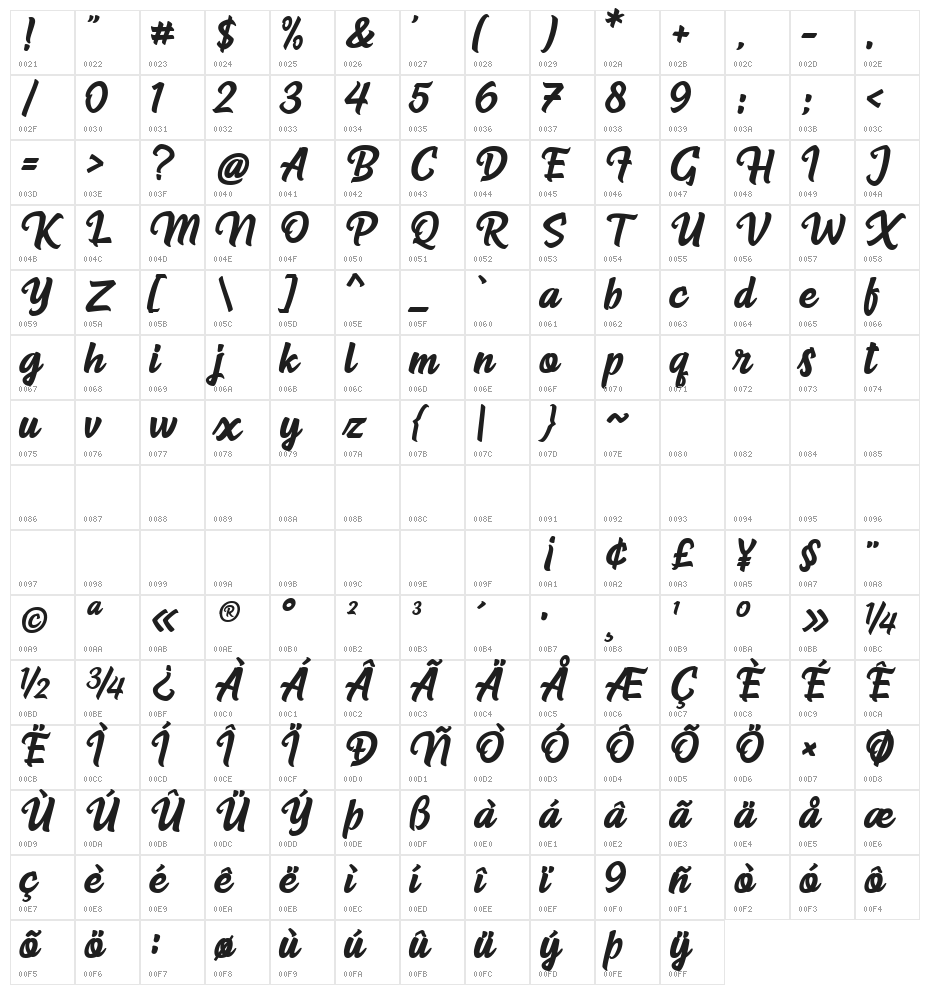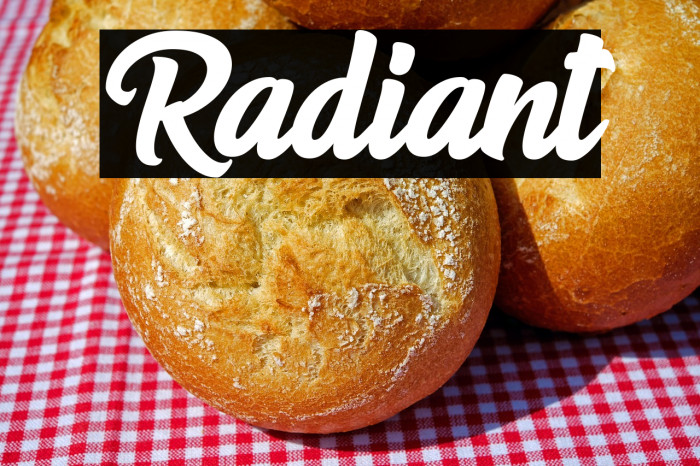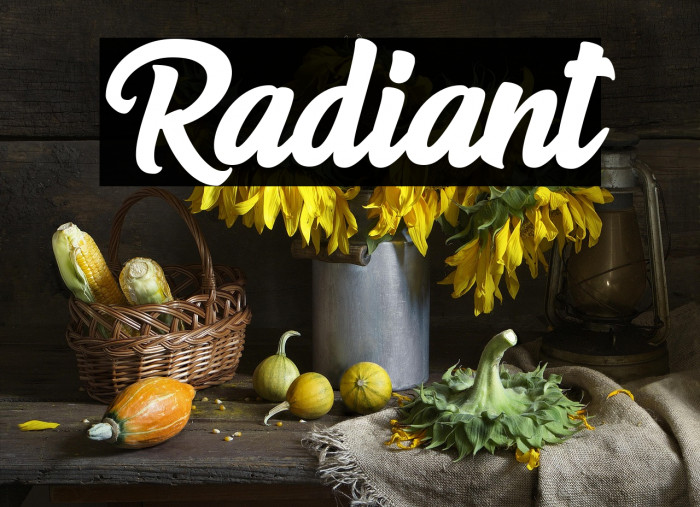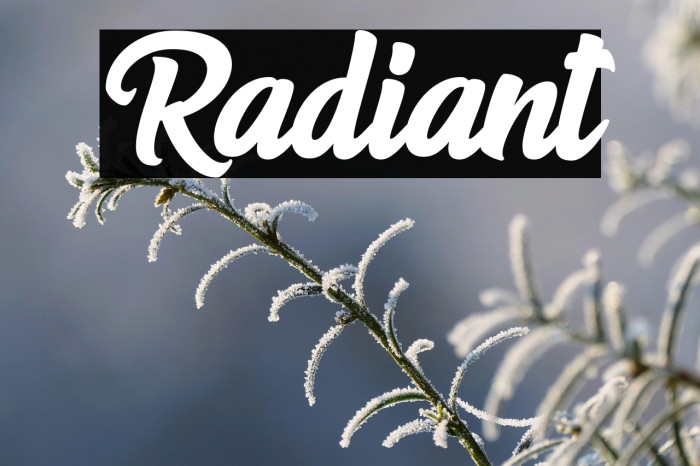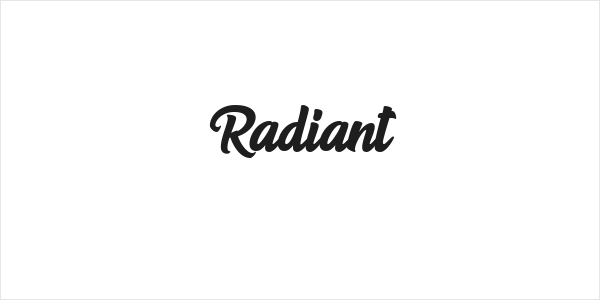
Radiant Font
Radiant Description
This font features a bold and expressive script style, characterized by its fluid and dynamic strokes. The uppercase letters exhibit a sense of elegance and movement, with each character seamlessly connecting to the next. The lowercase letters maintain this fluidity, offering a cohesive and harmonious appearance. The numerals are equally bold, ensuring readability while maintaining the font's overall aesthetic. Special characters are crafted with the same attention to detail, making them suitable for various design applications. The font's boldness and script style make it ideal for projects that require a touch of sophistication and flair.
| Use Case | Logos, Headlines, Invitations |
| Proposed Projects | Ideal for branding, invitations, greeting cards, and elegant signage. |